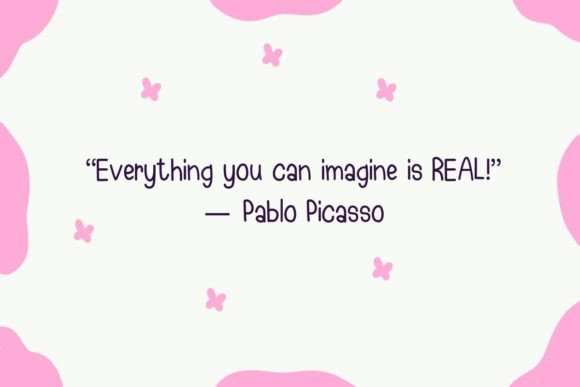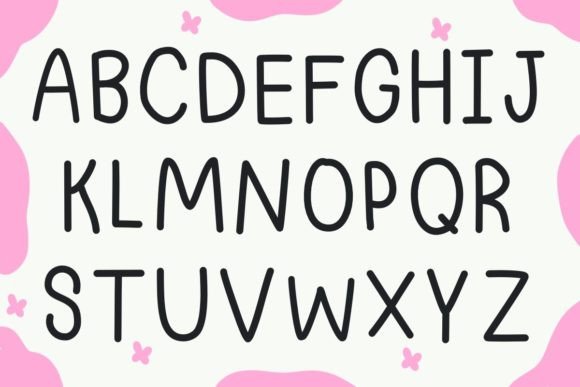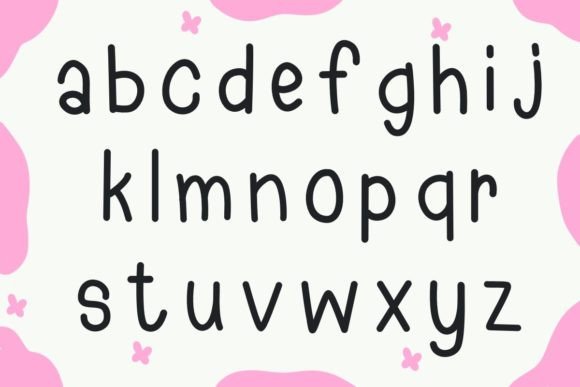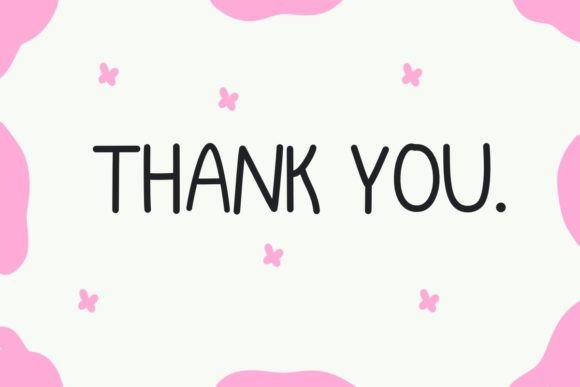
My Friend Font
About My Friend Font
My Friend, with its simple and cool handwritten style, emerges as a font that exudes a friendly and approachable feel. This font’s versatility makes it incredibly flexible, allowing it to fit seamlessly into a wide range of contexts, making it a valuable asset for various design projects.
The simplicity of My Friend is a key feature that contributes to its charm. The clean and straightforward lines of the font create a modern and uncluttered appearance, making it suitable for a variety of design applications. Whether used for crafting, digital design, presentations, or any other creative endeavor, My Friend adapts effortlessly to different projects.
The friendly feel of My Friend is a standout characteristic that sets the tone for a welcoming and approachable design. This quality makes the font particularly well-suited for projects where a personable touch is desired. It can be employed in a variety of contexts, such as social media graphics, invitations, posters, or any design that aims to engage the audience in a friendly manner.
One of the strengths of My Friend is its adaptability and ease of use. Designers can have fun exploring the endless variations that this font offers, experimenting with different styles and applications. This flexibility ensures that My Friend remains a reliable choice for creative professionals seeking a font that can easily integrate into their design toolbox.
The trendy nature of My Friend aligns with contemporary design aesthetics, making it suitable for projects that require a modern and up-to-date feel. This font can contribute to the overall visual appeal of a design while maintaining a sense of simplicity and clarity.
In summary, My Friend is more than just a font; it’s a versatile tool that designers can utilize to create engaging and approachable designs. Its simplicity, friendliness, and adaptability make it suitable for a broad spectrum of applications. Whether you’re crafting, designing digitally, or creating presentations, My Friend is ready to infuse your projects with a cool and contemporary vibe.